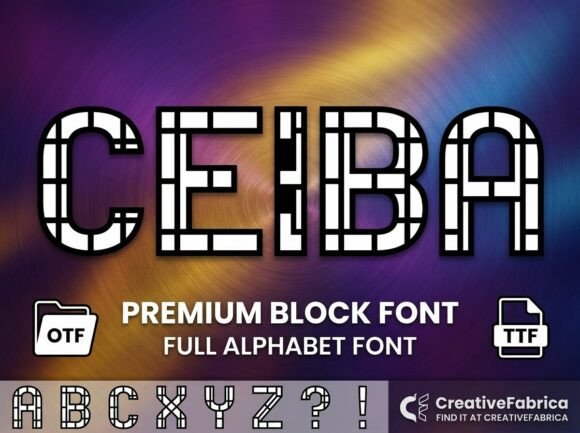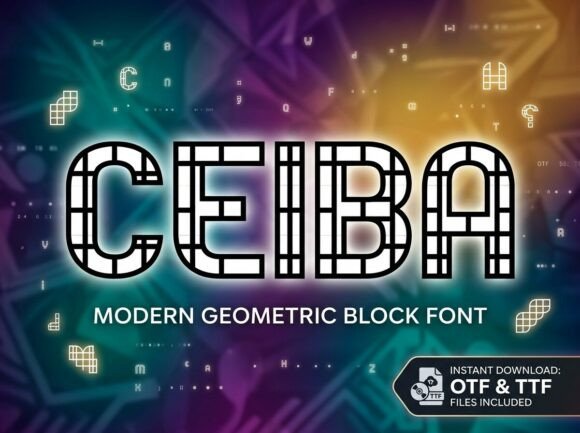
Introducing Ceiba Font: A Stunning Decorative Display Font
Are you tired of using the same old fonts for your creative projects? Look no further than Ceiba Font, a unique and artistic display font that’s sure to turn heads. Designed to be the center of attention, Ceiba Font features a strong visual personality and versatile design that’s perfect for creators who want to break away from the ordinary.
What Makes Ceiba Font Special?
Ceiba Font is a decorative display font that’s specifically designed for high-impact headlines, logos, and decorative initials. With its unique artistic elements and strong visual personality, this font is perfect for creators who want to add a touch of elegance and sophistication to their work.
One of the standout features of Ceiba Font is its versatility. Whether you’re looking to create bold headlines, artistic logos, or creative packaging, this font is up to the task. Its professional and polished finish ensures that your work will look great in any context, from digital media to print.
This means that Ceiba Font is perfect for creating eye-catching titles and headings, but it’s not suitable for body text or other applications where lowercase letters are necessary.
Use Cases for Ceiba Font
So, what can you use Ceiba Font for? Here are a few ideas to get you started:
- Headlines and Titles: Use Ceiba Font to create eye-catching headlines and titles for your blog posts, articles, and social media updates.
- Logos and Branding: Ceiba Font is perfect for creating unique and memorable logos for your business or personal brand.
- Packaging and Label Design: Add a touch of elegance and sophistication to your packaging and label design with Ceiba Font.
- Graphic Design: Use Ceiba Font to add a decorative touch to your graphic design projects, from brochures to posters.
Tips for Using Ceiba Font
Here are a few tips for getting the most out of Ceiba Font:
- Use it sparingly: Because Ceiba Font is a decorative display font, it’s best to use it sparingly to avoid overwhelming your design.
- Experiment with colors: Ceiba Font looks great in a variety of colors, so don’t be afraid to experiment and find the perfect hue for your design.
- Pair it with a simple font: For body text and other applications where readability is key, pair Ceiba Font with a simple font to create visual contrast.
Ceiba Font is a stunning decorative display font that’s perfect for creators who want to add a touch of elegance and sophistication to their work. With its unique artistic elements, strong visual personality, and versatile design, this font is sure to turn heads. Whether you’re looking to create bold headlines, artistic logos, or creative packaging, Ceiba Font is the perfect choice.